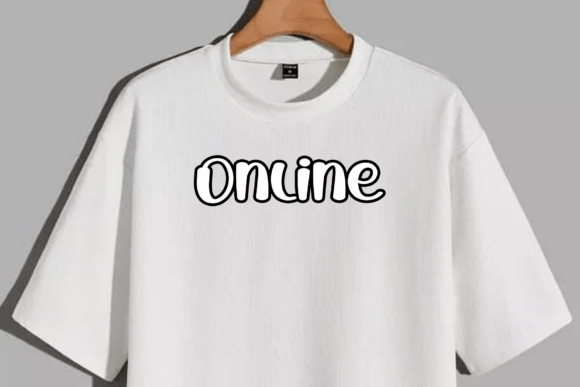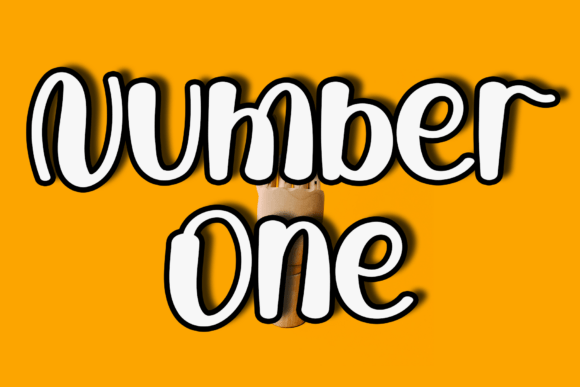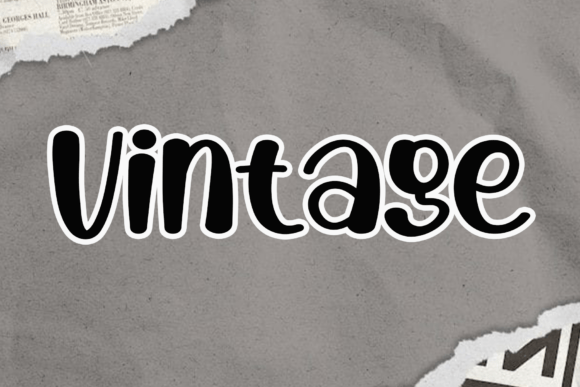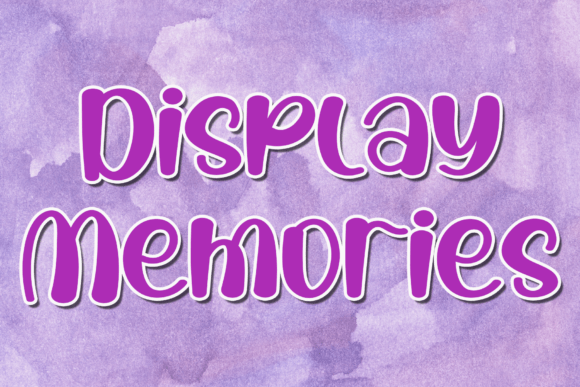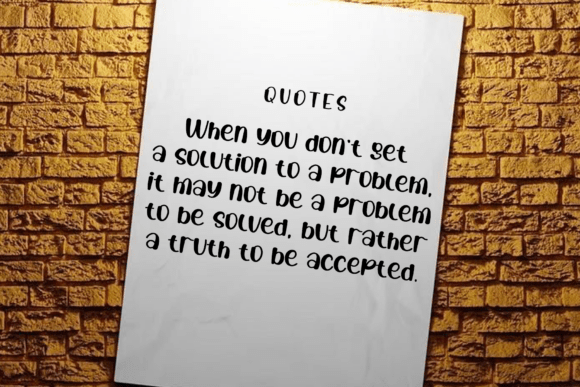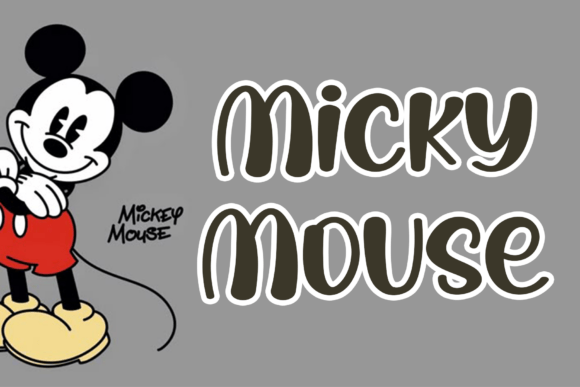
Introducing Happy Memories Font: The Perfect Blend of Freshness and Elegance
Are you tired of using the same old fonts in your design projects? Look no further than Happy Memories Font, a charming script font that brings a sense of freshness and casual elegance to any design. With its fluid strokes and organic lines, Happy Memories is the perfect choice for designers and crafters looking to add a touch of warmth and personality to their work.
The Characteristics of Happy Memories Font
Happy Memories Font is a script font that exudes a laid-back vibe, making it perfect for a variety of design projects. Its key characteristics include:
- Fluid strokes: Happy Memories Font features fluid strokes that give it a smooth and effortless look.
- Organic lines: The font’s organic lines add a touch of warmth and personality to any design.
- Casual elegance: Happy Memories Font has a charming and elegant feel that’s perfect for designs that require a touch of sophistication.
Uses for Happy Memories Font
Happy Memories Font is a versatile font that can be used in a variety of design projects, including:
- Branding: Use Happy Memories Font to create a unique and memorable brand identity that stands out from the crowd.
- Invitations: Add a touch of elegance and sophistication to your invitations with Happy Memories Font.
- Social media graphics: Use Happy Memories Font to create eye-catching social media graphics that showcase your personality and style.
- Stationery: Happy Memories Font is perfect for creating custom stationery, such as notebooks, journals, and greeting cards.
Why Choose Happy Memories Font?
So why choose Happy Memories Font over other fonts? Here are just a few reasons:
- Unique and distinctive: Happy Memories Font has a unique and distinctive look that’s sure to set your designs apart from the crowd.
- Easy to read: Despite its elegant and cursive look, Happy Memories Font is easy to read and understand.
- Versatile: Happy Memories Font can be used in a variety of design projects, from branding and invitations to social media graphics and stationery.
Tips for Using Happy Memories Font
Here are a few tips for using Happy Memories Font in your design projects:
- Pair with a sans-serif font: Pair Happy Memories Font with a sans-serif font to create a beautiful and contrasting look.
- Experiment with colors: Happy Memories Font looks great in a variety of colors, so don’t be afraid to experiment and find the perfect hue for your design.
- Use it sparingly: While Happy Memories Font is a beautiful font, it can be overwhelming if used too much. Use it sparingly to create a beautiful and elegant look.
In conclusion, Happy Memories Font is a charming script font that’s perfect for designers and crafters looking to add a touch of freshness and elegance to their work. With its fluid strokes, organic lines, and casual elegance, Happy Memories Font is sure to become a favorite in your design arsenal. So why not give it a try and see the difference it can make in your designs?
Whether you’re a professional designer or a crafter looking for a unique font for your next project, Happy Memories Font is a great choice. Its versatility, elegance, and charm make it perfect for a variety of design projects, from branding and invitations to social media graphics and stationery.